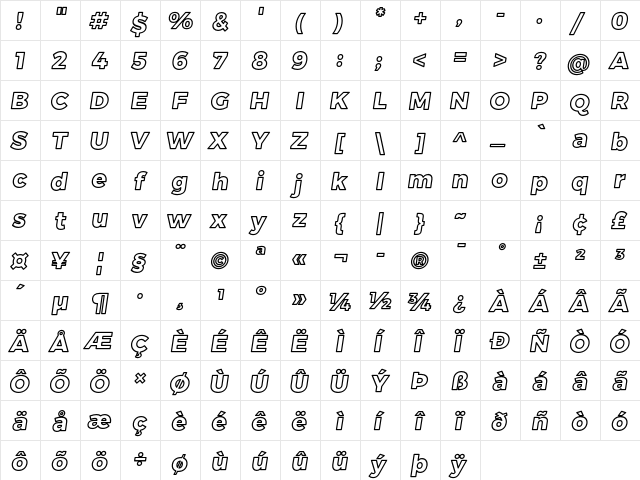
Trueno ExtraBold Outline Italic Font Preview
| Foundry | Julieta Ulanovsky |
| Designer | Julieta Ulanovsky |
Design Context for Trueno Typeface
Trueno is built around its visual character rather than neutral utility — its distinctive forms are designed to make an impression at display sizes. The dynamic lean of this cut emphasises speed and emphasis in any layout. The heavy weight commands attention and anchors typographic hierarchies.
Font Pairing: Pair with a clean neutral sans-serif for body copy to let Trueno's character lead without overwhelming the composition.
Pro Tip: Treat Trueno as the centrepiece of your typographic hierarchy. One strong heading set in a decorative face can carry an entire layout.